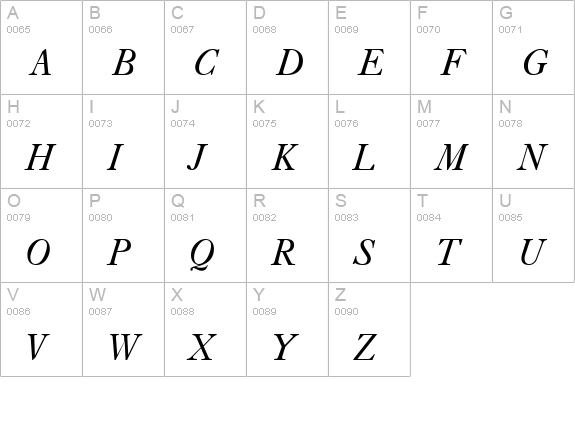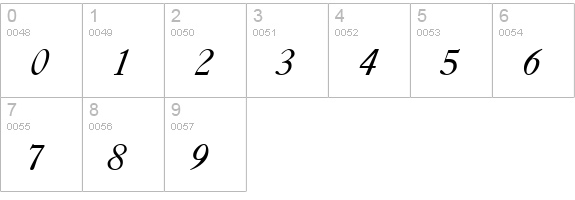
Casque Italic is a distinctive, italic variant in the Casque typeface family \xE2\x80\x94 well suited to design and typography projects.
Casque Italic is a stunning and elegant font that exudes sophistication and refinement. With its graceful curves and stylish slant, this font is perfect for adding a touch of class to any design project. Whether used for headings, logos, or body text, Casque Italic is sure to make a statement. The best part? Casque Italic is completely free to download at FontsMarket.com. You can easily access this beautiful font and enhance your designs without any cost. Don't miss out on the opportunity to elevate your projects with the timeless beauty of Casque Italic. Download it today and let your creativity shine!